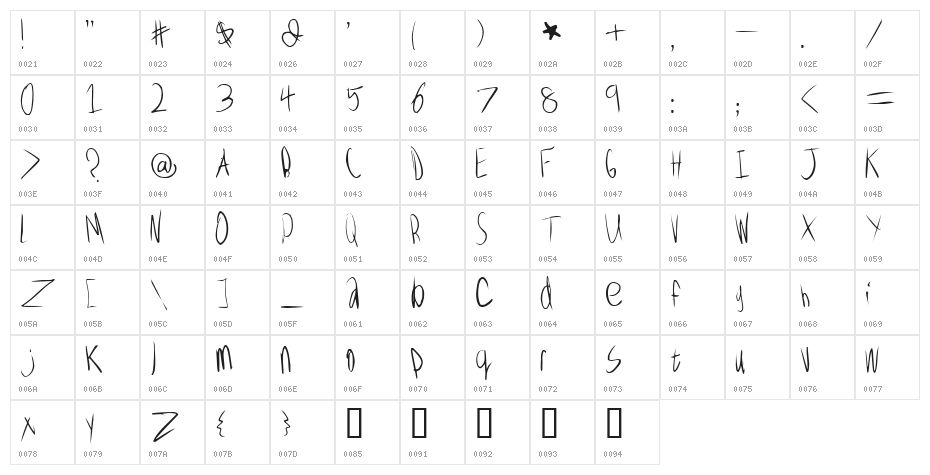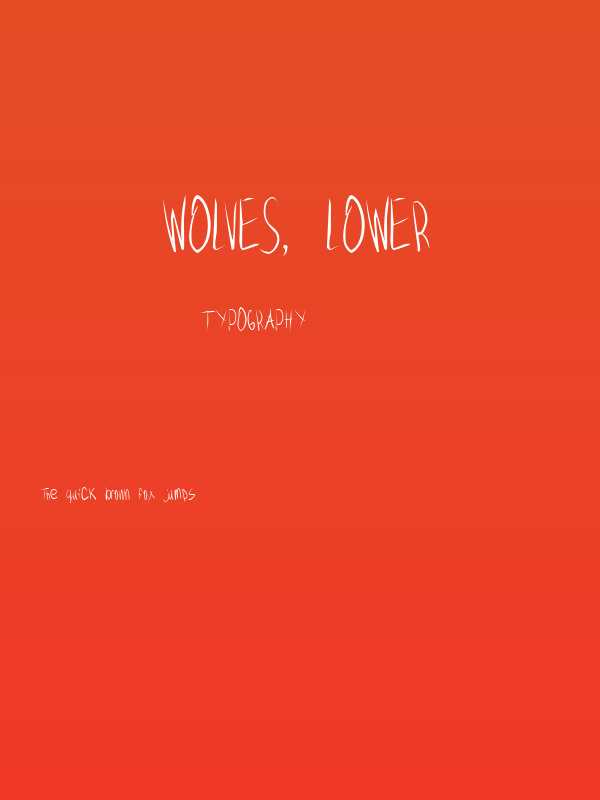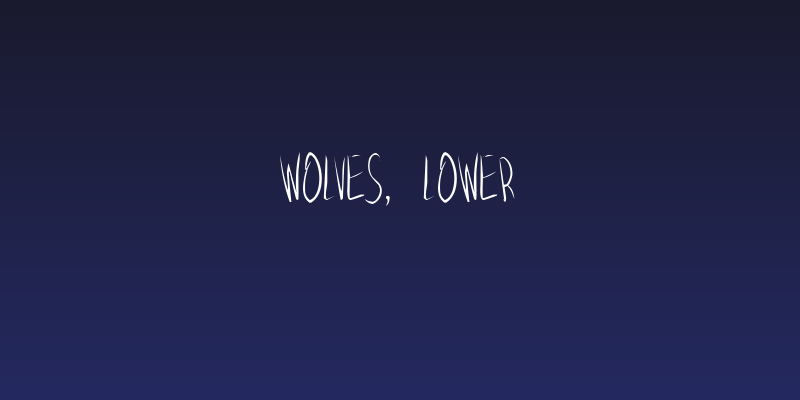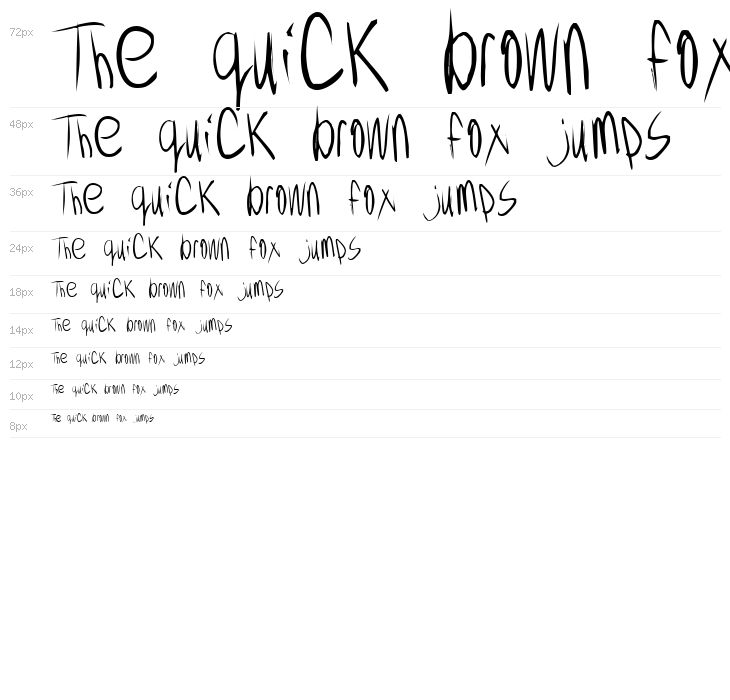
Wolves, Lower Font
Wolves, Lower Description
This font features a dynamic and expressive handwritten style, characterized by its irregular and playful strokes. The letters vary in width and height, giving it a lively and spontaneous appearance. The uppercase and lowercase letters maintain a consistent flow, while the numbers and special characters complement the overall aesthetic with their quirky and artistic forms. The font's unique personality makes it stand out, offering a sense of creativity and individuality. Its design is both informal and artistic, suitable for projects that require a personal touch or a creative flair.
| Proposed Projects | Ideal for greeting cards, artistic posters, personal branding, and creative invitations. |